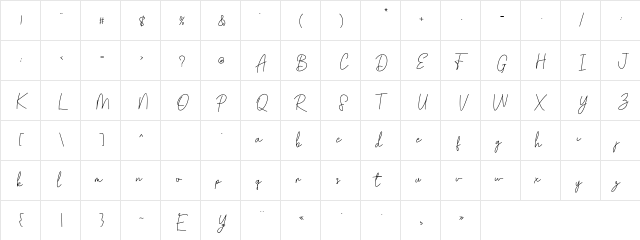
Golden Bridge Script Regular
| Foundry | Fajriadi |
| Designer | Fajriadi |
Design Context for Golden Bridge Script Typeface
Golden Bridge Script brings a calligraphic fluidity to the page — its connecting strokes and expressive curves give it an unmistakably human quality.
Font Pairing: Combine Golden Bridge Script with a simple geometric sans for maximum contrast — the tension between flowing curves and clean structure is a classic typographic pairing.
Pro Tip: Use Golden Bridge Script for short runs of text — names, titles, or taglines. Extended body copy in script faces tires the eye quickly.